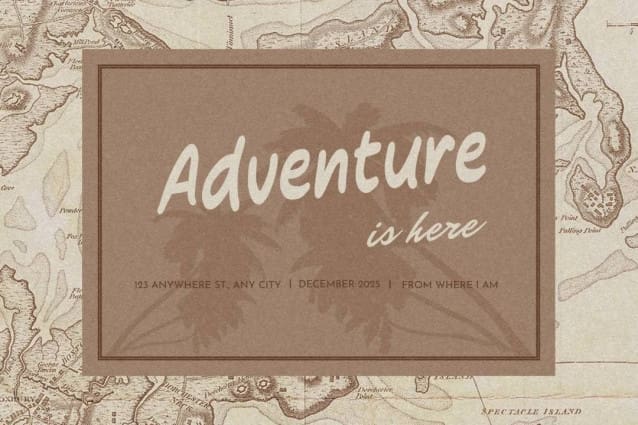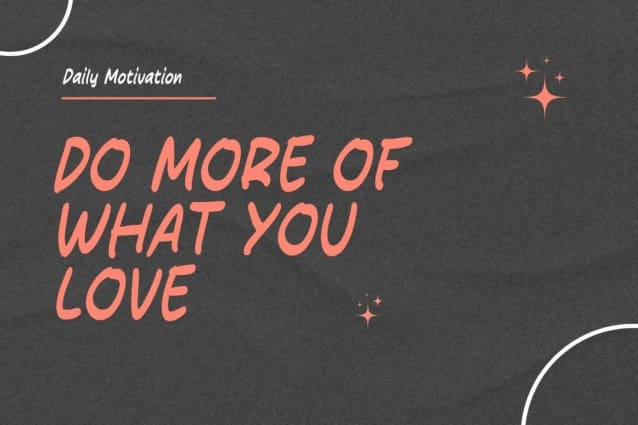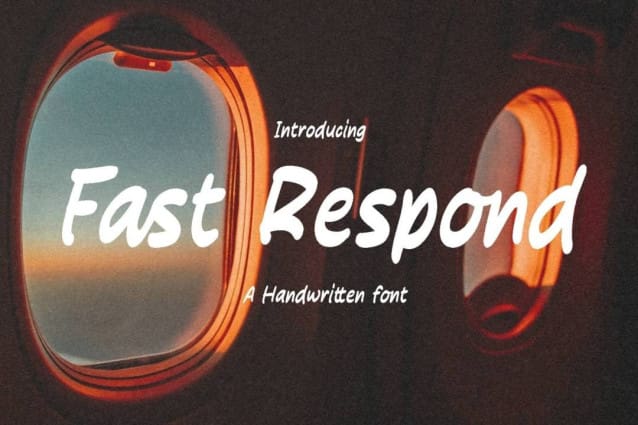
Fast Respond Font
Fast Respond Font is a simple and friendly handwritten font. Its natural and unique style makes it incredibly fitting to a large pool of designs. The only limit is your imagination!